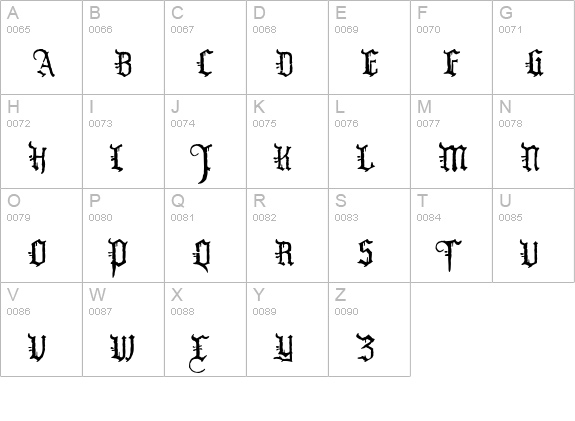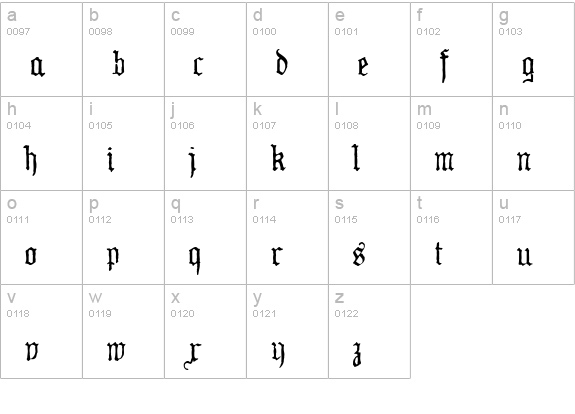
WW2 BlackltrAlt HPLHS Font Details
Introducing the captivating and historically-inspired WW2 BlackltrAlt HPLHS font, designed to transport you back to the gripping era of World War II. With its bold and commanding presence, this font pays homage to the iconic typography of the time, capturing the essence of wartime communication in every letterform. Crafted with meticulous attention to detail, WW2 BlackltrAlt HPLHS exudes an air of strength and resilience, reflecting the spirit of the brave men and women who fought for freedom during the war. Its striking, angular shapes and sharp edges evoke a sense of urgency, mirroring the intensity of the global conflict that shaped the course of history. This font offers a unique twist on the classic blackletter style, infusing it with a contemporary edge that sets it apart from its counterparts. Its timeless appeal makes it perfect for a wide range of projects, including vintage-inspired designs, war-themed artwork, historical publications, and much more. But what makes WW2 BlackltrAlt HPLHS truly remarkable is that it is freely available to download at FontsMarket.com. Yes, you read that right – this captivating font can be yours without any cost. Whether you're a designer looking to add a touch of authenticity to your work or simply a history enthusiast seeking to immerse yourself in the atmosphere of the Second World War, WW2 BlackltrAlt HPLHS is the perfect choice. So, don't miss this opportunity to bring a piece of history into your creative endeavors. Download WW2 BlackltrAlt HPLHS today from FontsMarket.com and let this font transport you to a time of bravery, sacrifice, and triumph.